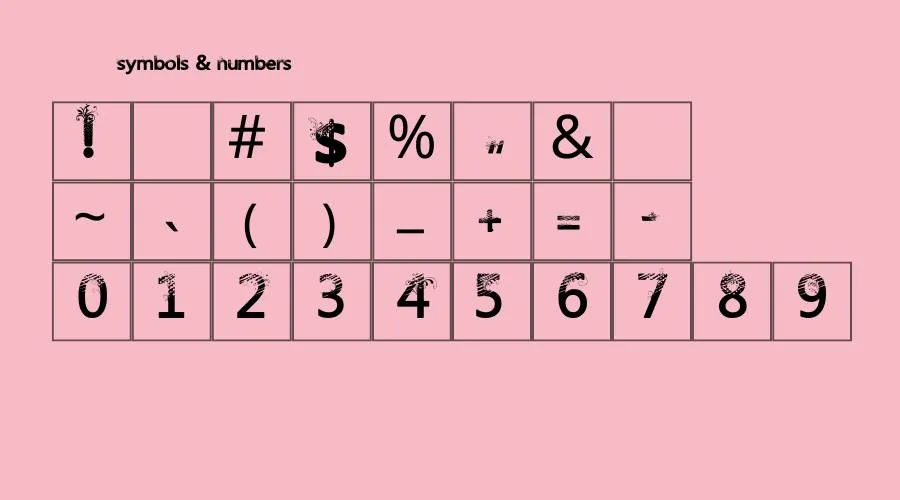
Trash Butterfly Font
About Trash Butterfly Font
In this post, going to share with you a new elegant and good-looking texture. The Trash Butterfly Font is under the category of the fancy texture family and was created by a well-known graphic designer called Maelle. K | Thomas Boucherie. This font is free and the perfect choice for all your fun purposes, and stylish projects.
The online generator tool of this typeface will help you to convert all your straightforward styles into stylish and trendy shapes. This font includes unique types of structures such as uppercase letters, small letters, digits, symbols, and punctuations.
This font has an amazing copy-and-paste ability, and can easily pair with KF puff font and make new attractive projects. It is the perfect choice for both CSS and adobe photoshops.
You may utilize this attractive and modern texture for various kinds of projects and can get the viewer’s attention. This typeface is perfect for making stylish projects such as logo designs, posters, social media posts, banners, thumbnails, and many more.
Many graphic designers utilize this typeface for printings, tiles, and headings. You may utilize this stunning typeface with renfrew font.
What kind of font is Trash Butterfly Font?
The Trash Butterfly typeface is under the category of the fancy texture family and was created by a well-known graphic designer called Maelle. K | Thomas Boucherie.
Where can I utilize the Trash Butterfly Font?
With its many characteristics, the Trash Butterfly texture is excellent for a range of tasks and processes. It may be utilized to make Instagram bios Images for websites and blogs.